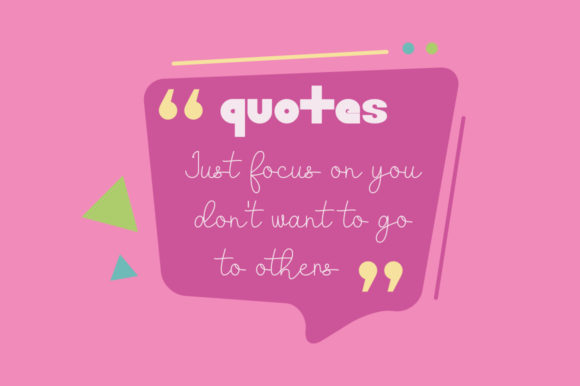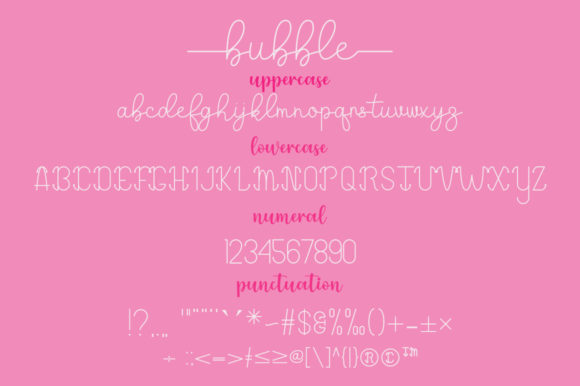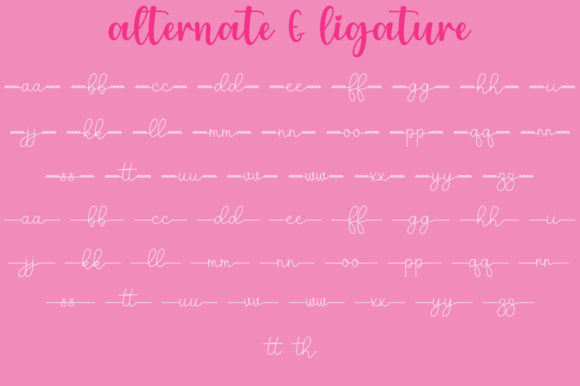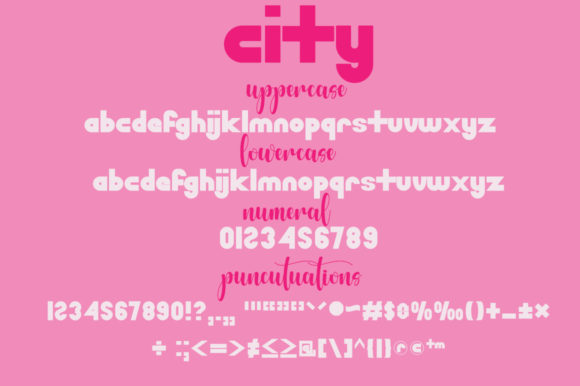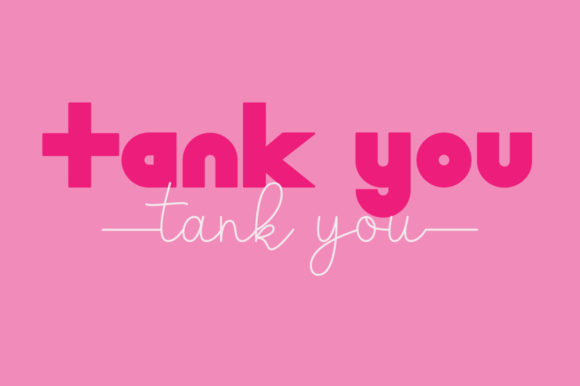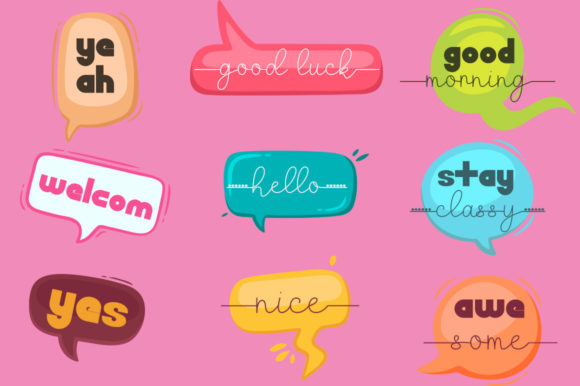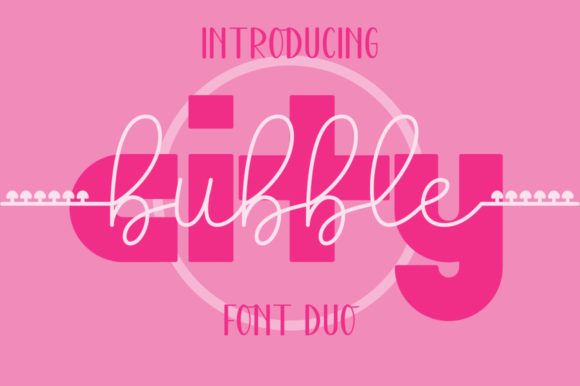
Bubbly City Font: Elevate Your Designs with a Lovely Duo Font
Are you a designer or crafter looking for a unique and elegant font to add a personalized touch to your creations? Look no further than Bubbly City Font, a stunning duo font that combines a beautiful script and display font. This versatile font is perfect for a wide range of design projects, from wedding invitations and thank you cards to quotes, greeting cards, logos, and business cards.
What Makes Bubbly City Font Special?
Bubbly City Font is a one-of-a-kind font that offers a range of features that make it stand out from other fonts. Here are just a few reasons why designers and crafters love this font:
- Lovely Duo Font: Bubbly City Font comes with two fonts in one – a beautiful script font and a stunning display font. This allows you to mix and match the fonts to create a unique look that suits your design style.
- PUA Encoded: This font is PUA (Private Use Area) encoded, which means that you can access all of the glyphs and swashes with ease. This makes it simple to customize your designs and add a personal touch.
- Perfect for Wedding and Greeting Card Designs: The elegant and sophisticated design of Bubbly City Font makes it perfect for wedding invitations, thank you cards, and other special occasion designs.
- Versatile: This font is suitable for a wide range of design projects, from logos and business cards to quotes and social media graphics.
- Pair the Script and Display Fonts: Experiment with pairing the script and display fonts to create a unique look. You can use the script font for body text and the display font for headings, or vice versa.
- Customize with Glyphs and Swashes: Use the PUA encoded glyphs and swashes to add a personal touch to your designs. You can access these by using the font’s built-in character map or by using a software program that supports PUA encoding.
- Experiment with Colors and Textures: Bubbly City Font looks stunning in a range of colors and textures. Experiment with different combinations to find the one that works best for your design.
Why Designers and Crafters Love Bubbly City Font
Designers and crafters love Bubbly City Font for a range of reasons. Here are just a few:
- Unique and Elegant Design: The beautiful design of Bubbly City Font makes it perfect for designers and crafters who want to add a touch of elegance to their creations.
- Easy to Use: The font is easy to use and customize, making it perfect for designers and crafters of all skill levels.
- Versatile: Bubbly City Font is suitable for a wide range of design projects, making it a great addition to any design library.
- Lovely duo font (script and display)
- Perfect for wedding invitations, thank you cards, and other special occasion designs
- Suitable for a wide range of design projects, including logos, business cards, and social media graphics